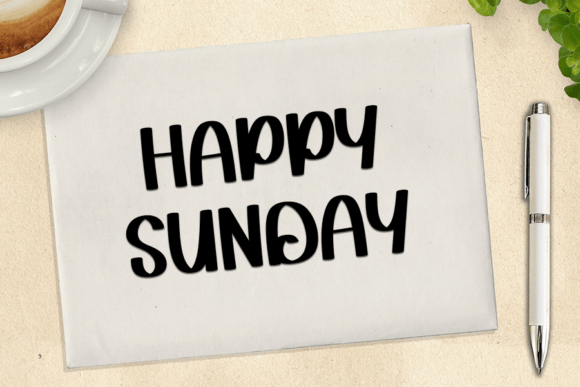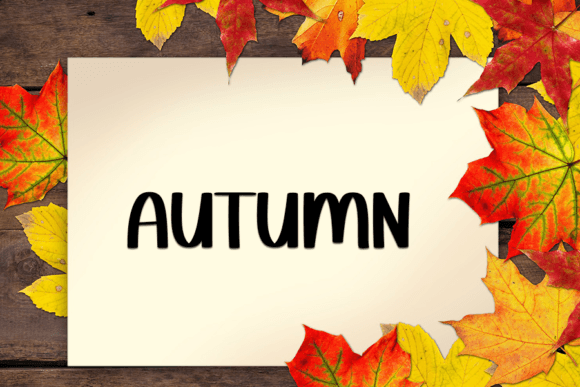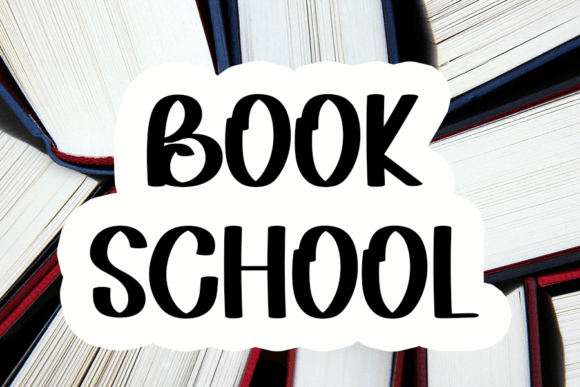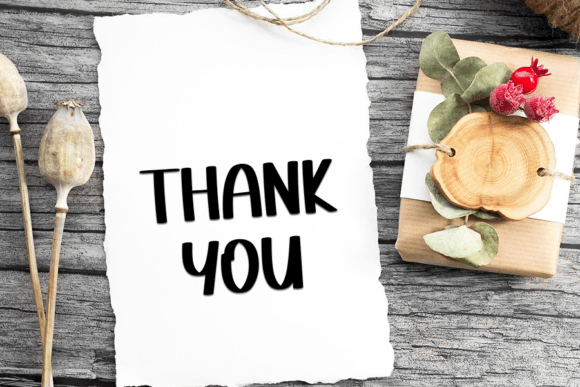
Star Wars Font
About Star Wars Font
**Embrace the Force of “Star Wars” Handwritten Font**
“Star Wars” is not just a font; it’s a journey to a galaxy far, far away. This cool handwritten font combines a modern vibe with classic calligraphic inspiration, creating a versatile typeface that can enhance a wide range of design projects. Here are some exciting ways to harness the power of “Star Wars” in your creative endeavors:
“Star Wars” font is more than just a design element; it’s a connection to a beloved and iconic universe. Its modern yet timeless style makes it a versatile choice for various applications, allowing you to create designs that resonate with fans and enthusiasts of all ages. May the creativity be with you!